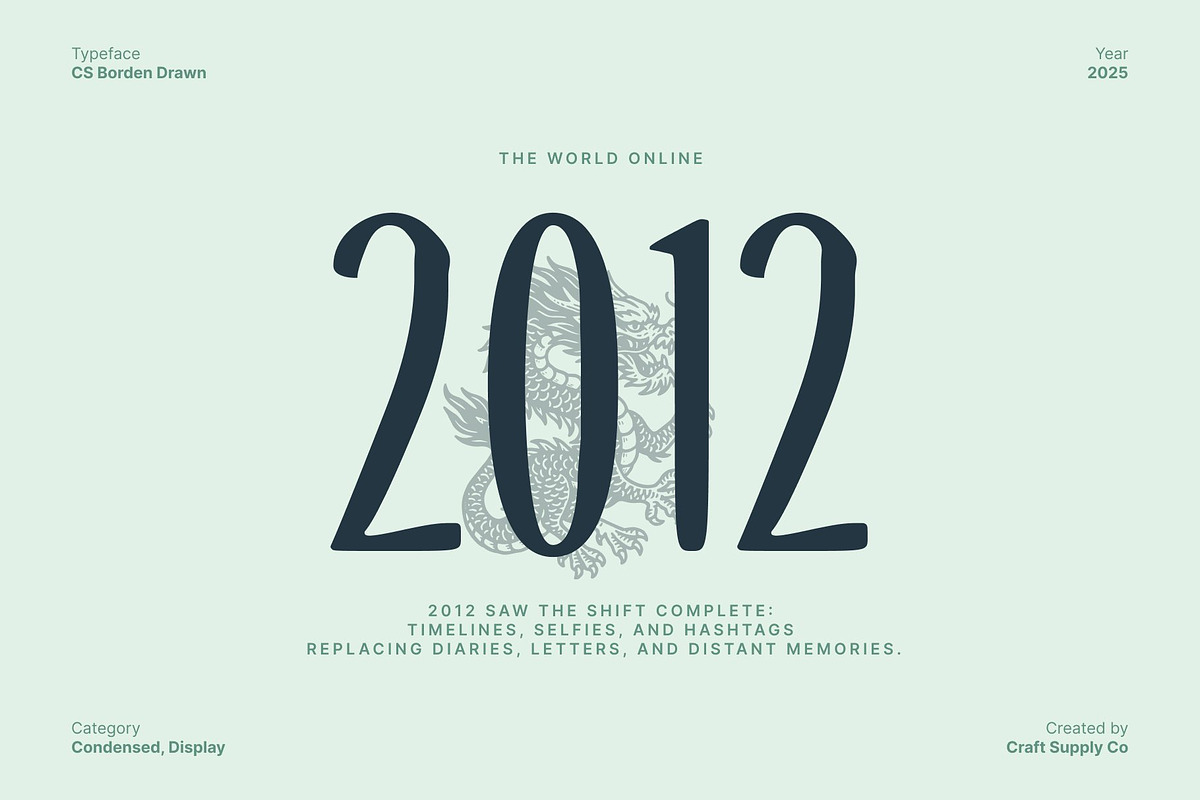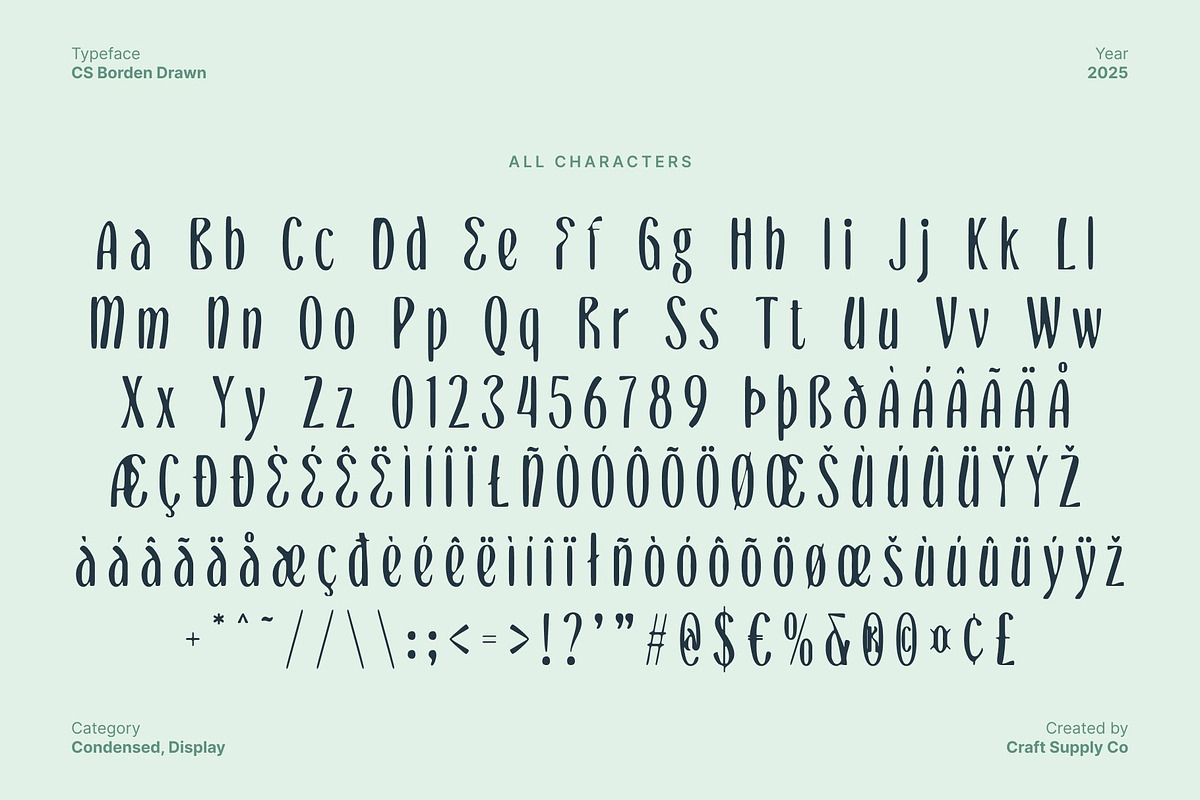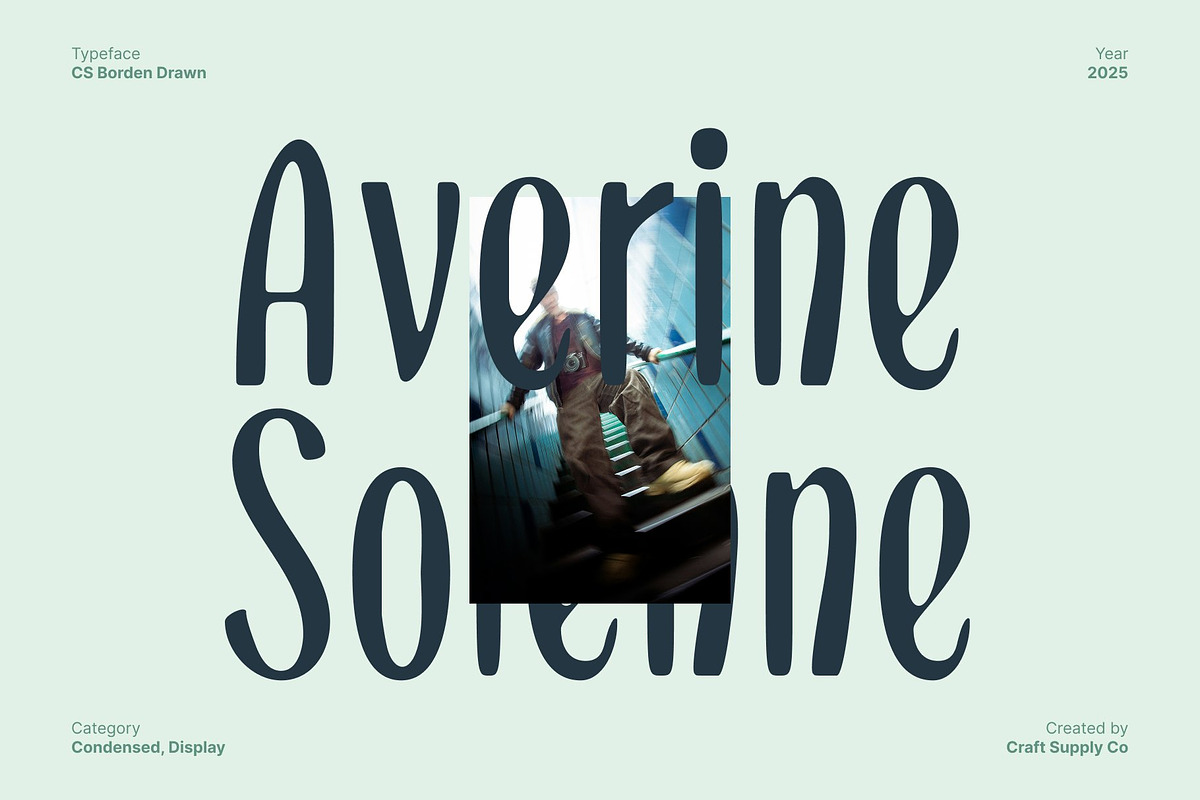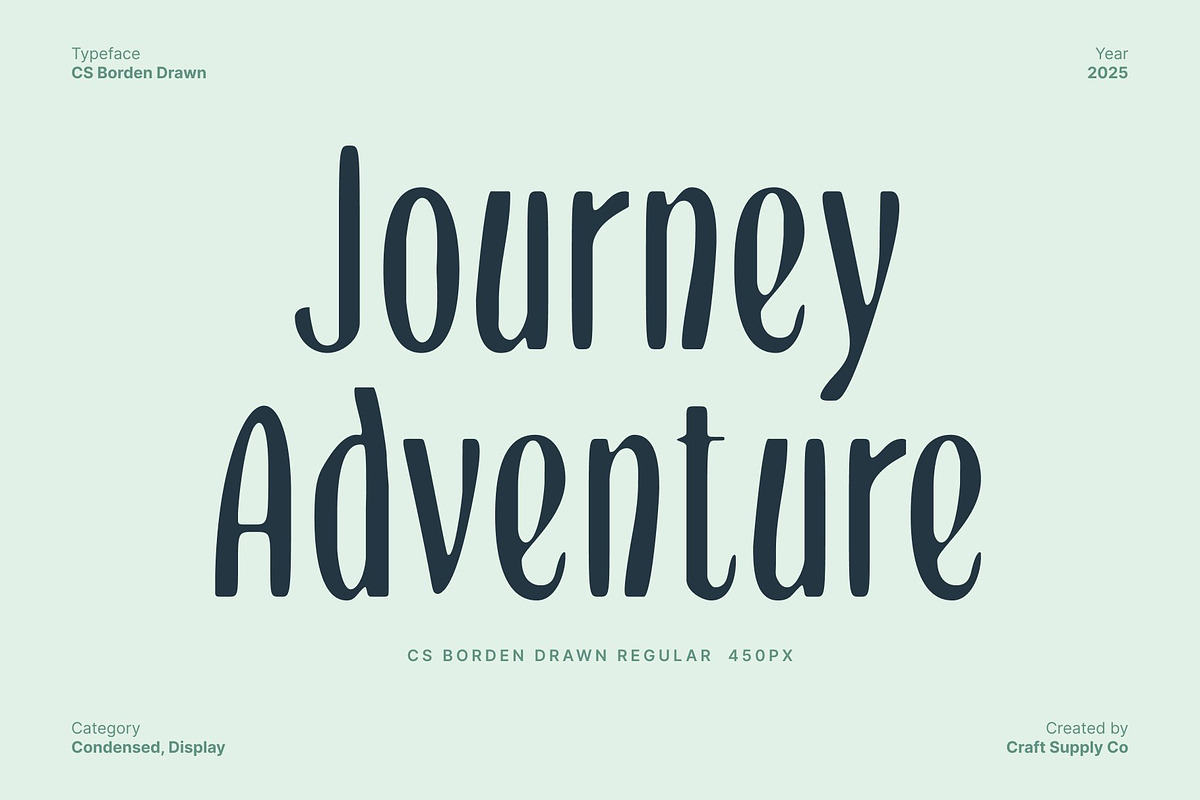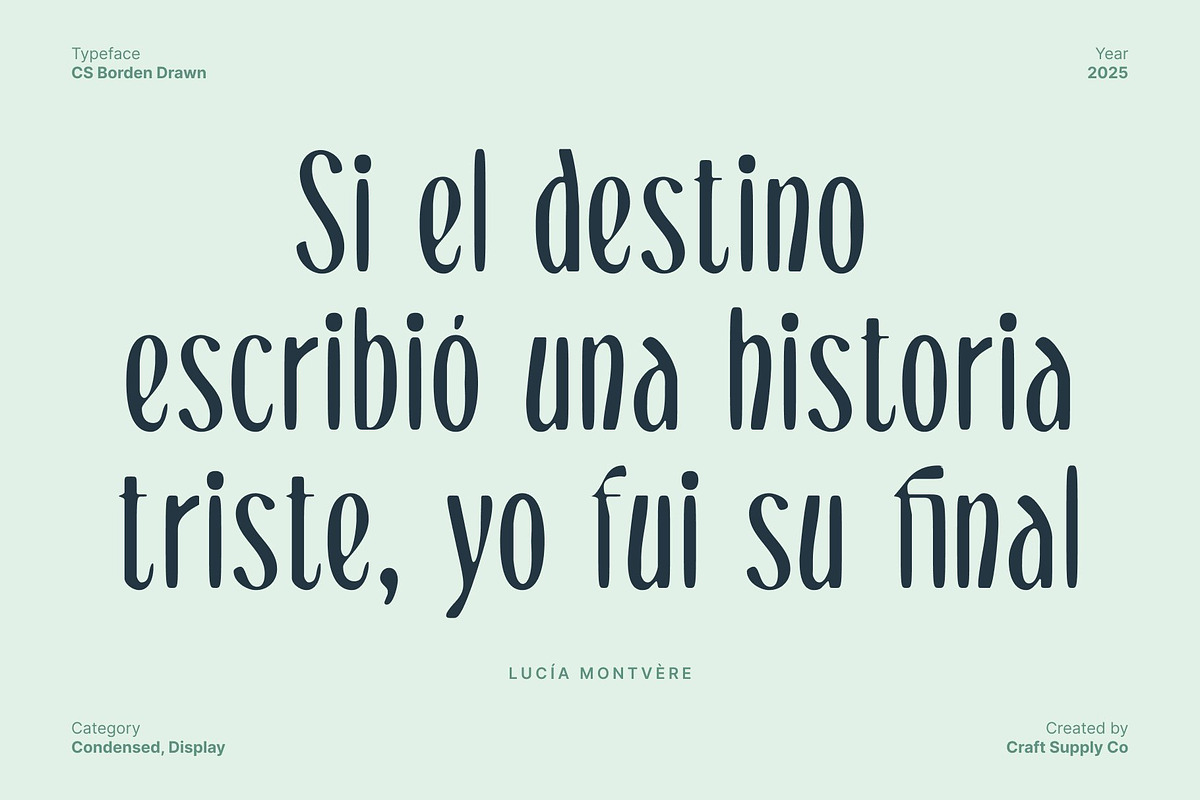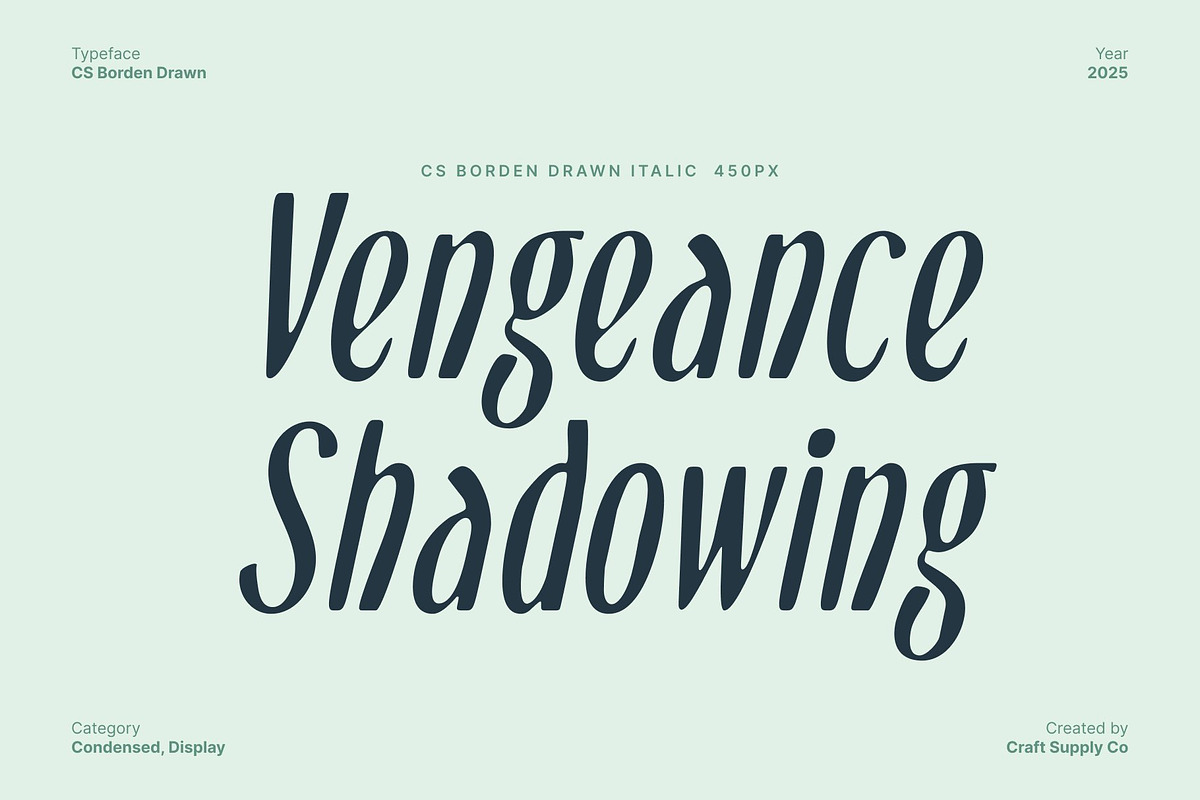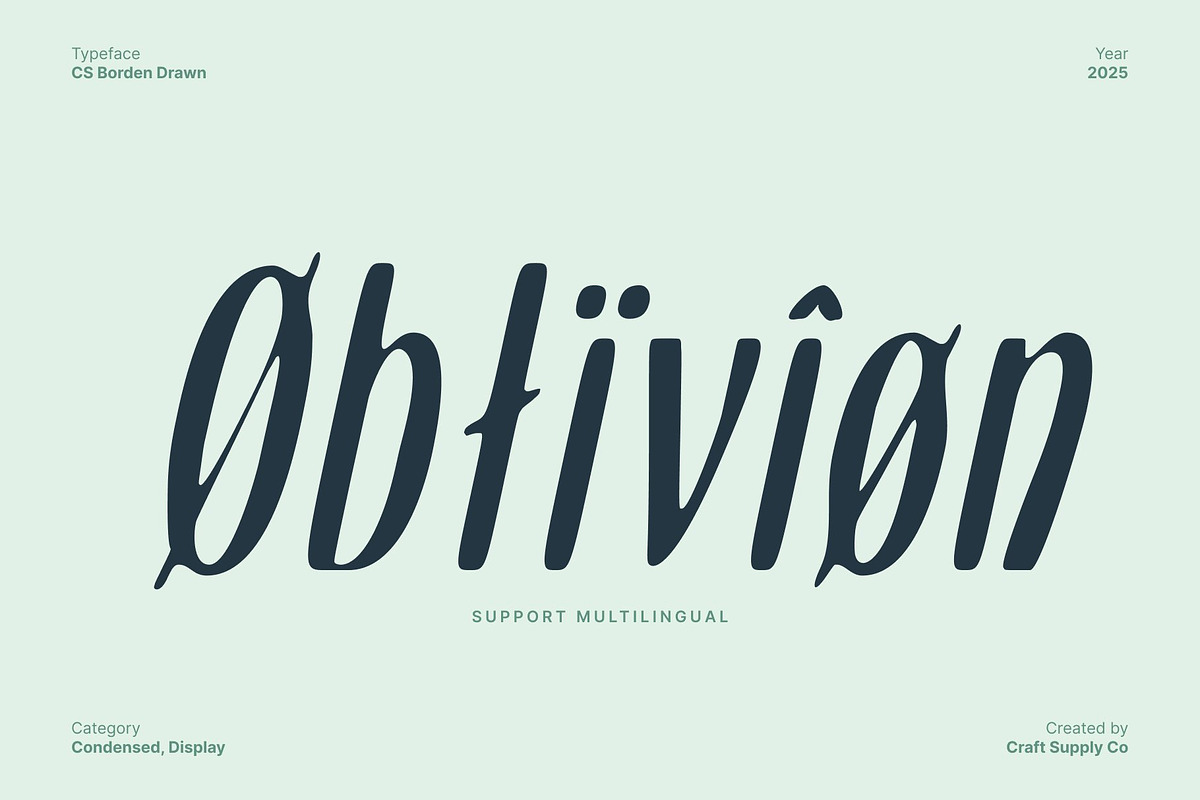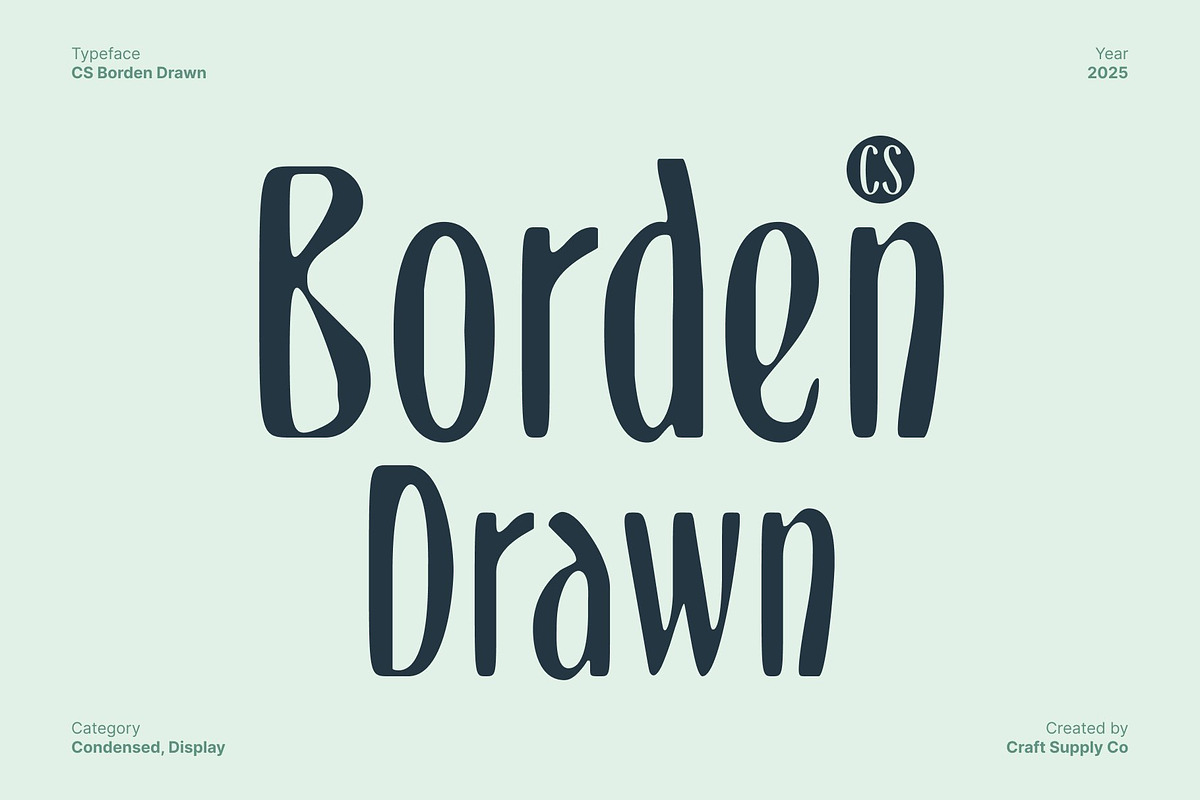
CS Borden Drawn
CS Borden Drawn – Condensed Sans Serif with Artistic Elegance
Slim Proportions with Graceful Modernity This is a condensed modern sans serif font designed with long, slim letterforms that exude refined beauty. Its sleek proportions create a graceful visual rhythm, making each character feel elegant yet contemporary. This subtle sophistication allows the font to bring a sense of elevated style to any design it touches.
Hand-Drawn Texture for Authentic Character What sets this font apart is its expressive handmade texture. The drawn finish adds warmth, personality, and a human touch transforming a clean modern structure into an artistic visual statement. This combination of precision and handcrafted charm makes the font both distinctive and emotionally engaging, perfect for designers seeking a balance between modernity and authenticity.
Ideal for Luxury and High End Branding With its stylish slim form and refined aesthetic, this font is a natural fit for luxury branding. It enhances logos, packaging, and label designs with elegance and artistic flair. Whether used in boutique fashion identities, premium product branding, or upscale promotional materials, it delivers a sophisticated impression that resonates with high end audiences.
Versatile for Editorial and Display Design This font shines in display settings from posters and magazine editorials to social media layouts and promotional graphics. Its condensed shape maximizes visual impact in limited space, while its textured finish adds depth and richness.
- CS Borden Drawn Regular
- CS Borden Drawn Italic